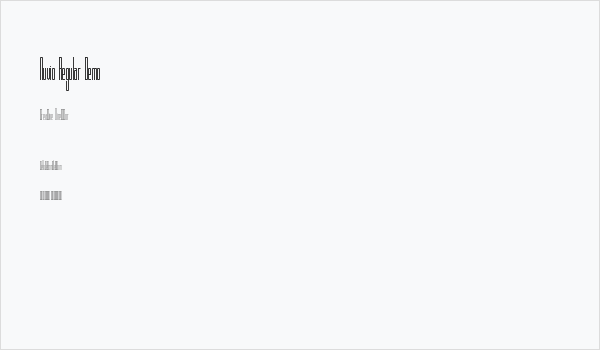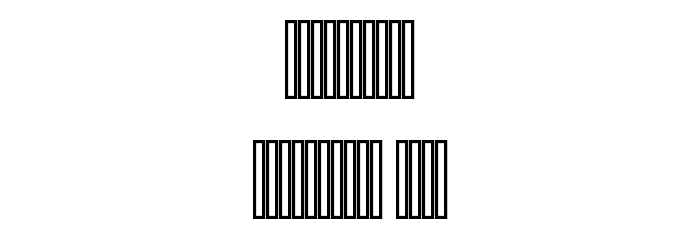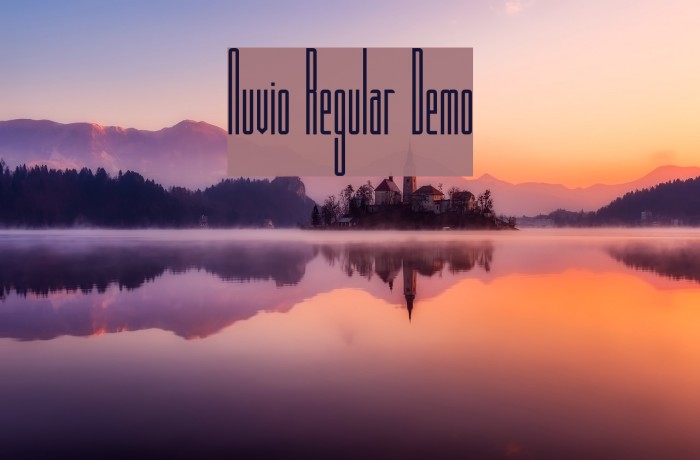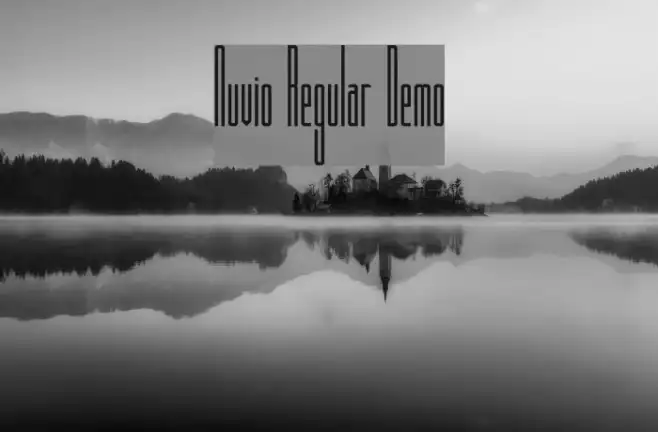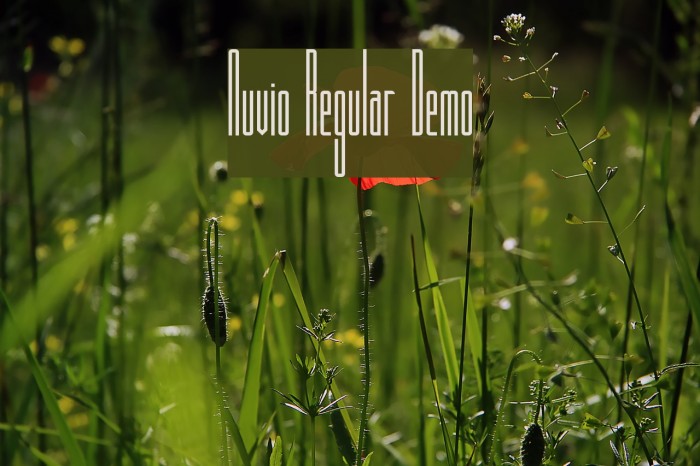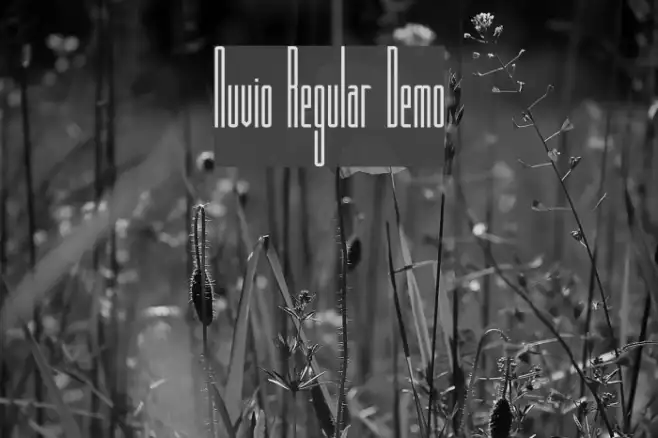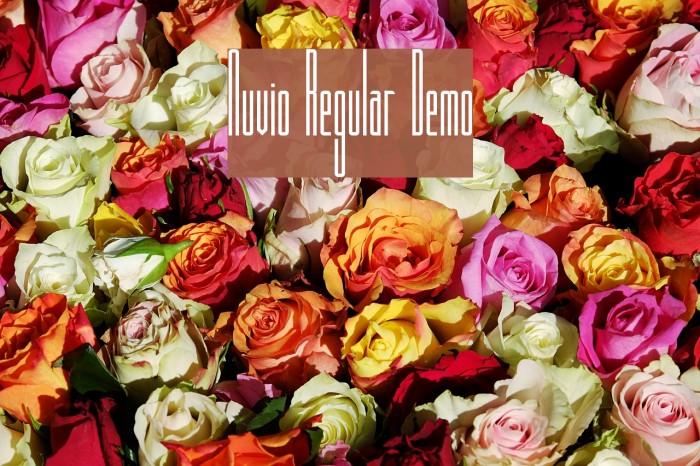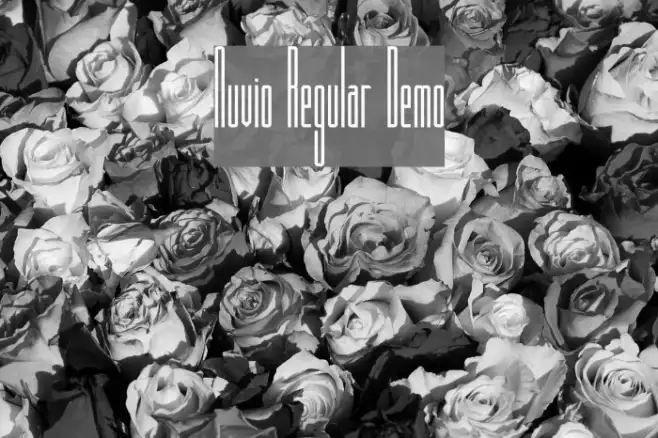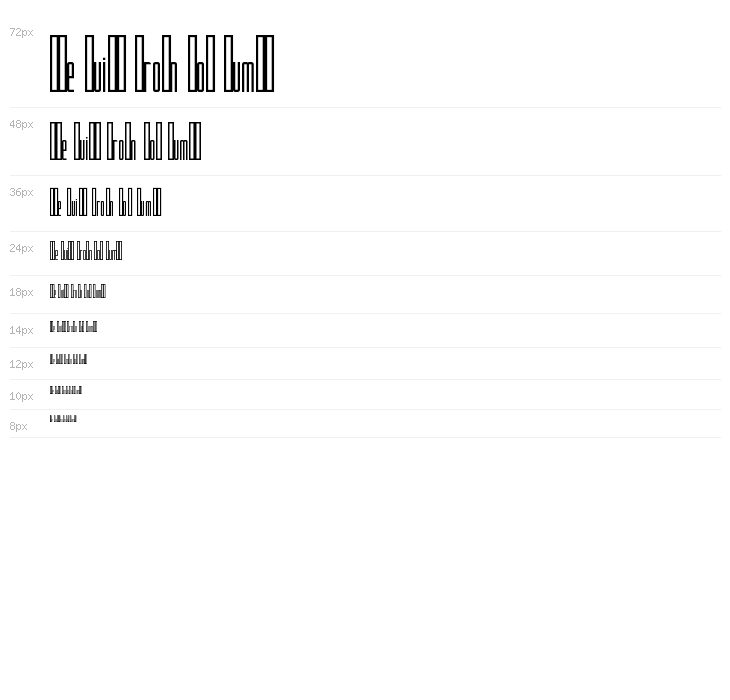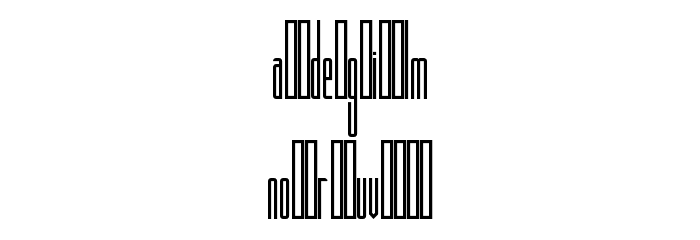
Nuvio Regular Demo Font
Nuvio Regular Demo Description
This font features a tall, narrow design with a modern and sleek appearance. The characters are elongated, giving them a distinctive vertical emphasis. The strokes are consistent in width, creating a uniform look across all characters. The font's geometric structure is evident in its clean lines and sharp angles, making it suitable for contemporary design projects. The uppercase and lowercase letters maintain a cohesive style, while the numbers and special characters blend seamlessly with the overall aesthetic. This font's unique style makes it ideal for projects that require a bold and modern touch.